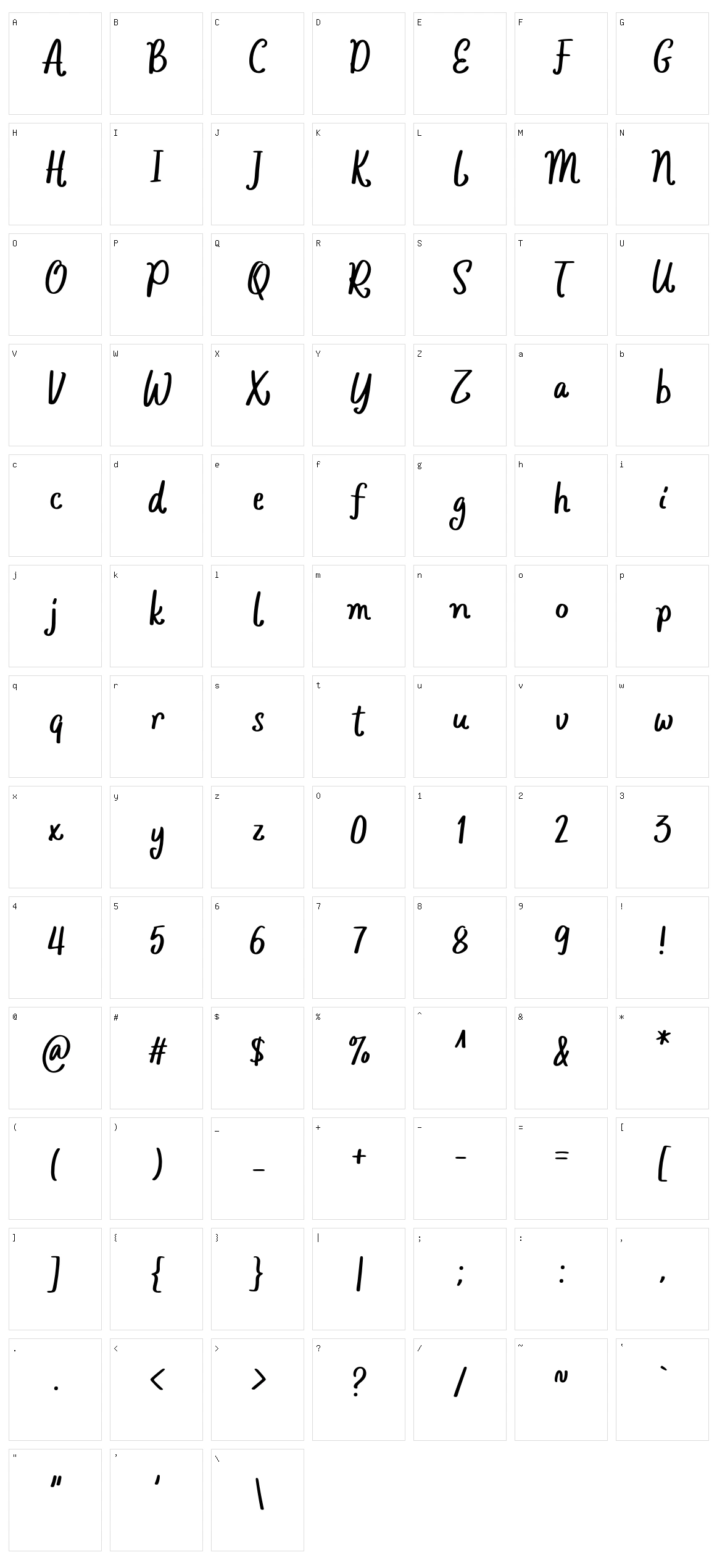
Gunkid Font
Gunkid font is a brand new free font created by Locomotype based on someoneâs handwriting from Gunungkidul. Thatâs why this font is called Gunkid, short for Gunungkidul. On the other hand, this font is a special collaboration with @kabargunkid, a Twitter account that reports things related to Gunungkidul.
With a casual handwritten style, Gunkid font feels very warm and unique especially when you want to create a personal design like a diary, quote poster, Instagram feed, Facebook updates etc. You can even install it on your smartphone.